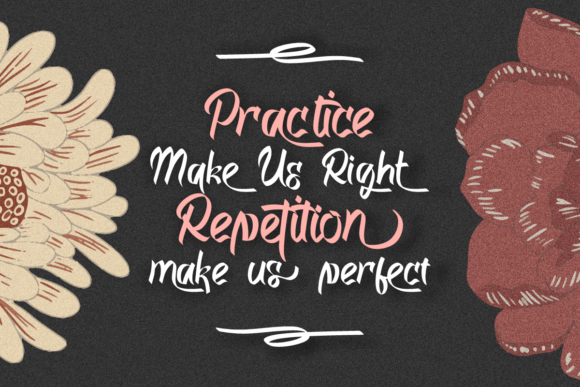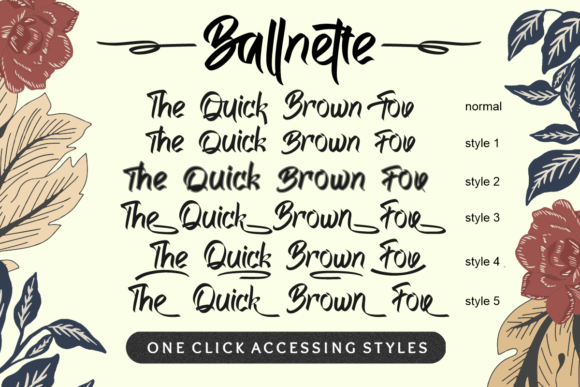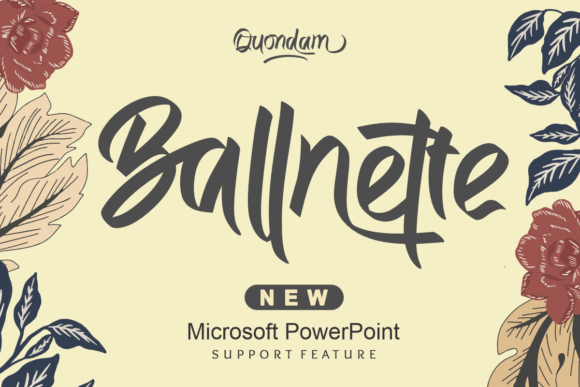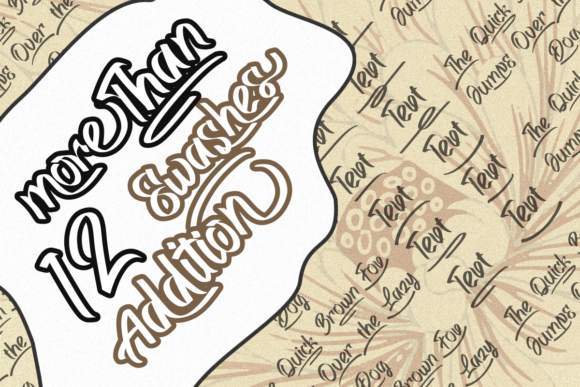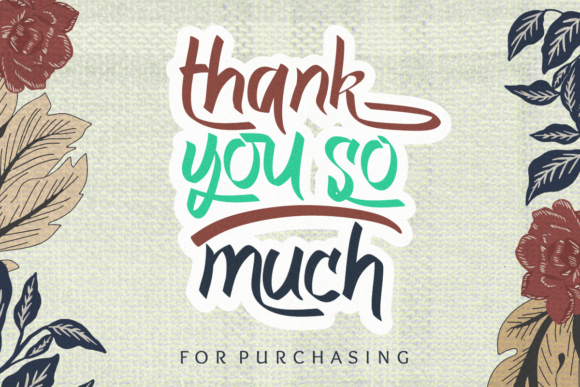
Quondam Font
About Quondam Font
Introducing Quondam, a charming and elegant handwritten font that exudes timeless beauty and sophistication. Its versatility makes it a perfect choice for a wide range of design projects, from enchanting wedding invitations to heartfelt thank you cards, captivating quotes, charming greeting cards, refined logos, and stylish business cards. Let Quondam be your go-to font whenever you need a touch of exquisite handwriting.
Quondam’s charming and elegant strokes create an air of sophistication and allure. Each letter is crafted with meticulous attention to detail, showcasing the font’s artistry and finesse. Whether you’re planning a grand wedding celebration or conveying heartfelt sentiments, Quondam elevates your projects to the highest levels of beauty and authenticity.
The font’s PUA encoding allows you to access a treasure trove of glyphs and swashes with ease, giving you the freedom to unleash your creativity and add unique touches to your designs. The varying baseline, smooth lines, gorgeous glyphs, and stunning alternates ensure that Quondam is a font that delights both designers and readers alike.
Quondam’s versatility knows no bounds, making it a perfect fit for various design settings. From luxurious branding to delicate stationery, and from social media graphics to editorial layouts, Quondam’s timeless elegance enhances your creations with its captivating presence.
Imagine using Quondam to create enchanting wedding invitations. Its elegant script becomes a work of art, setting the tone for a celebration filled with love and sophistication, leaving guests in awe of its beauty.
For branding and logos that require a touch of timeless elegance, Quondam becomes a symbol of sophistication and grace. Its unique style allows you to create a brand identity that resonates with authenticity and charm.
In the realm of social media and quotes, Quondam adds a touch of artistry and allure to your posts and graphics. It captures attention with its beauty, inviting your audience to connect with your message on a deeper level.
Greeting cards and heartfelt quotes become poetic expressions of emotion with Quondam. The font’s delicate script conveys sentiments with finesse, making your messages truly captivating.
In conclusion, Quondam is more than just a font; it’s a treasure trove of elegance and charm. With its charming and elegant style, Quondam becomes an invaluable asset for all your design projects. Embrace the captivating allure of Quondam and watch as your creations come alive with sophistication and grace. Let your imagination soar in the charming and elegant embrace of Quondam, the handwritten font that defines timeless allure and creative brilliance.